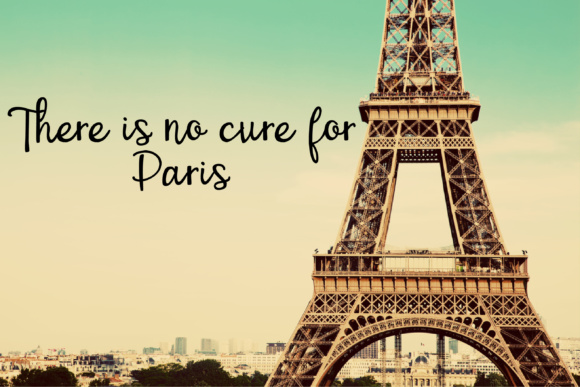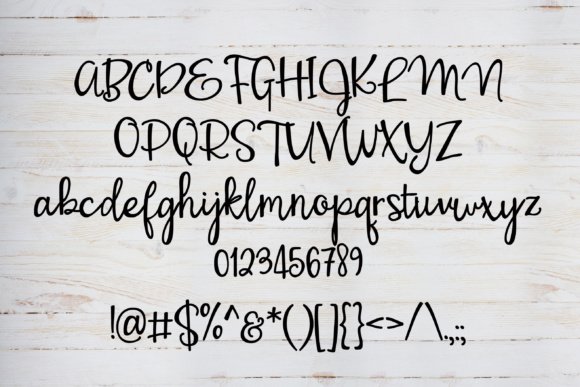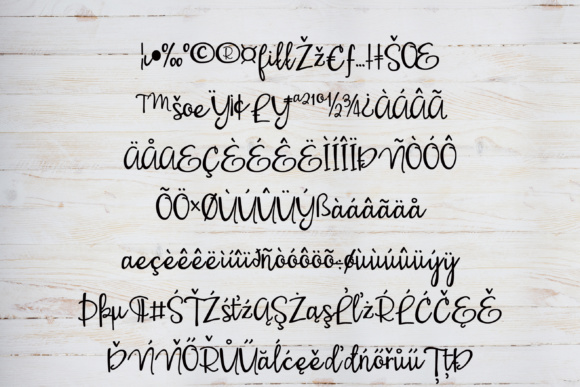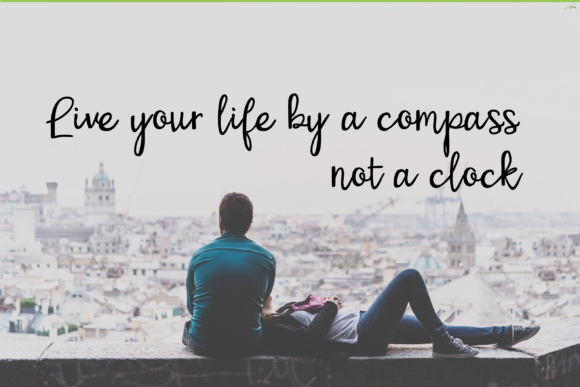
HomeScript FontsPN Époisses De Bourgogne Font Script Fonts PN Époisses De Bourgogne Font FacebookTwitterPinterestWhatsApp PN Époisses De Bourgogne Font Poster 2 PN Époisses De Bourgogne Font Poster 3 PN Époisses De Bourgogne Font Poster 4 PN Époisses De Bourgogne Font Poster 5 About PN Époisses De Bourgogne Font This pretty hand-written script has a bouncy baseline. DOWNLOAD NOW People also explored Elyphoa Font Rise of Kingdom Little Meow Font Keyox Font All Caps Split Monogram Font Renedetta Font Little Bunny Font Pinky Font Objectives Font 136 0 TagsPN Époisses De Bourgogne Font Previous articleZP Seaside FontNext articleFutusicia Duo Font LEAVE A REPLY Cancel reply Comment: Please enter your comment! Name:* Please enter your name here Email:* You have entered an incorrect email address! Please enter your email address here Website: Save my name, email, and website in this browser for the next time I comment. Personal Use Free JVNE Smoothdron Personal Use Free Read more about this font Mike Ferrari 16017 Personal Use Free Read more about this font My Ugly Handwritting Personal Use Free Read more about this font Mellow Personal Use Free Read more about this font BLOG Free vs Paid Fonts: Why Investing in Premium Fonts Is Worth It Free vs Paid Fonts: Why Premium Fonts Are Worth It in 2025 The debate of free vs paid fonts continues in the design world. While... Free Fonts Risk: Why Free Fonts Can Be Dangerous for Designers Transform Your Website: Elevate Your Typography with 7 Best Web Font Generators The 10 Best Handwriting Fonts to Add Personality to Your Designs